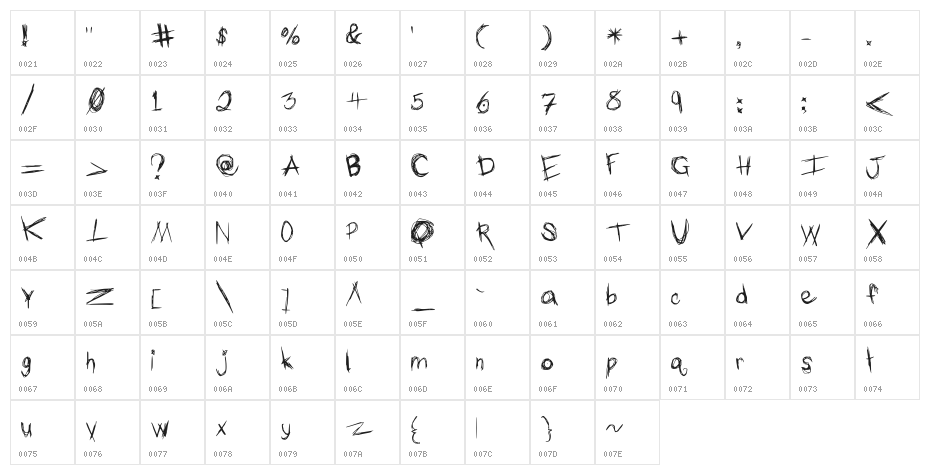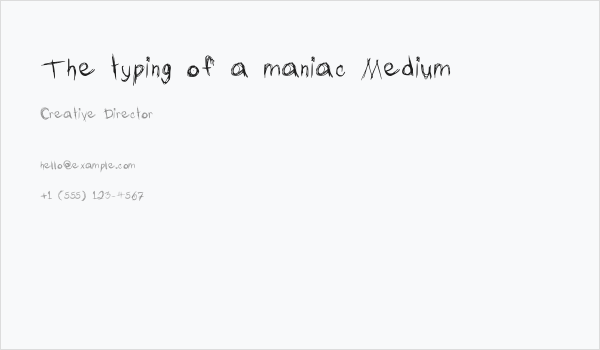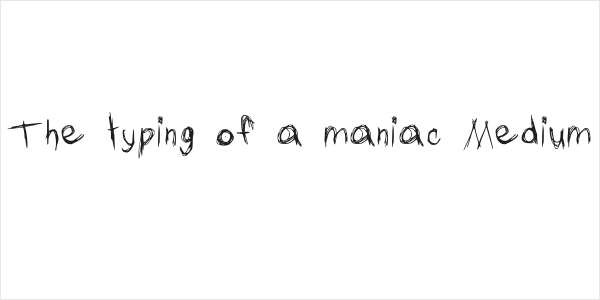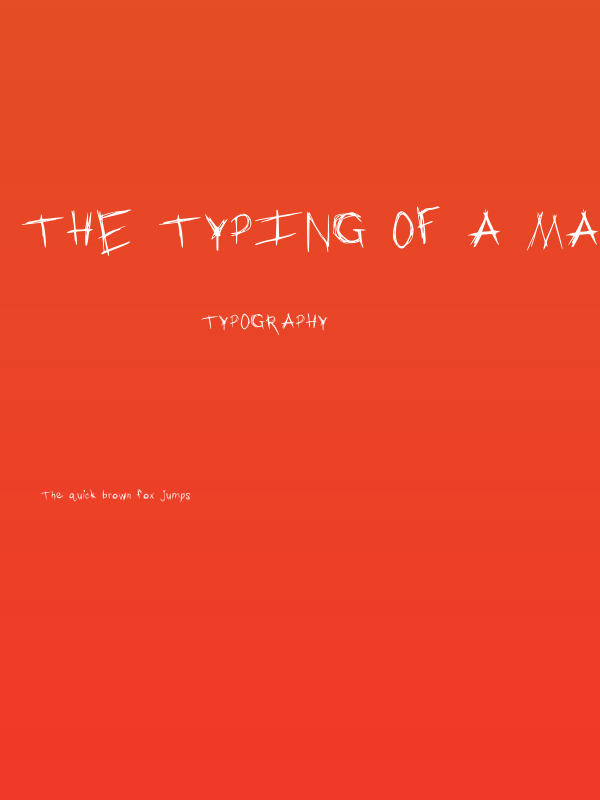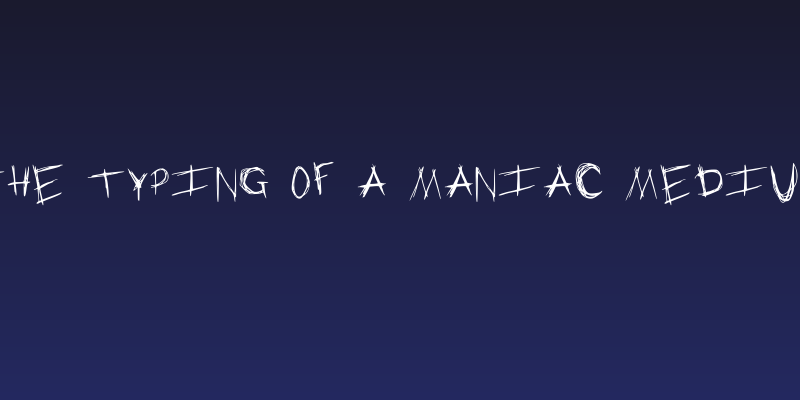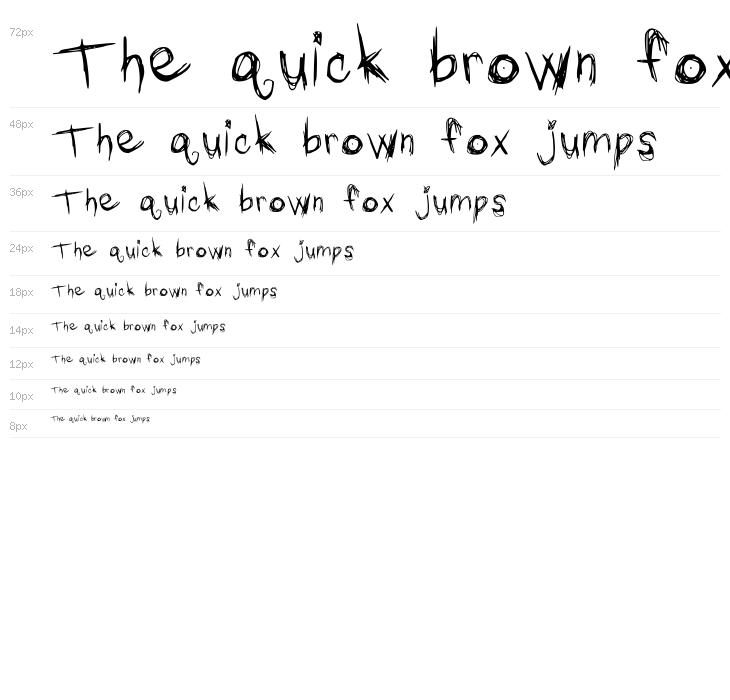
The typing of a maniac Medium Font
The typing of a maniac Medium Description
This font exudes a chaotic and energetic vibe, characterized by its erratic and sketchy strokes. Each letter appears as if it has been hastily scribbled, giving it a raw and unpolished look. The uppercase and lowercase letters maintain a consistent style, with jagged edges and uneven lines that create a sense of movement and urgency. The numbers and special characters follow the same aesthetic, adding to the overall disordered appearance. This font is perfect for projects that require a sense of spontaneity and creativity, making it ideal for artistic and unconventional designs.
| Use Case | Headlines, Artistic designs, Posters |
| Proposed Projects | Ideal for artistic projects, album covers, horror-themed designs, and creative posters. |